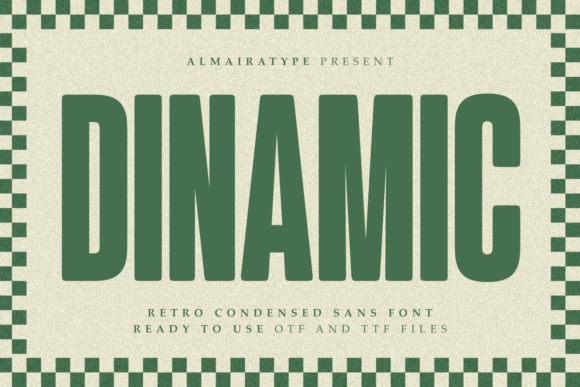
The Ultimate Design Companion: Unleashing the Power of Dinamic Font
Remember the thrill of rummaging through your grandfather’s attic, discovering a vintage poster or a dusty old magazine that sparks your creativity? For many designers, that’s the moment when the magic happens – a spark of inspiration that sets their imagination ablaze. As you delve deeper into the world of typography, you’ll soon realize that the right font can be the key to unlocking that creative potential.
Enter the Dinamic Font, a bold and versatile retro condensed sans font that’s perfect for high-impact visual storytelling. Designed to command attention while maintaining a sleek and professional elegance, this font is an essential asset for any creative toolkit. Whether you’re a graphic designer, clothing brand, or print on demand entrepreneur, the Dinamic Font is sure to add a touch of timeless character to your designs.
With its smooth, slightly rounded edges and classic 70s and 80s typography feel, the Dinamic Font is a valuable addition to any designer’s arsenal. Its excellent readability and unique, stylish flair make it perfect for creating trendy apparel designs, social media graphics, or eye-catching logos.
Dinamic Font Key Features
- Font Family: Dinamic Font is a sans-serif typeface designed for digital use, available in multiple weights.
- Character Set: Dinamic Font supports a wide range of languages, including Latin, Cyrillic, and Greek scripts, making it suitable for global applications.
- Unique Characteristics: Dinamic Font features a unique blend of modern and geometric elements, resulting in a clean and sophisticated appearance.
Dinamic Font Review
As a designer, I was excited to test the Dinamic Font, and I must say, it has some great qualities. ✨ Firstly, its dynamic feel and energetic vibe make it perfect for headlines and titles, grabbing the user’s attention instantly. The font’s versatility in conveying a sense of movement and flow is truly captivating. I’ve used it in a few projects, and the results are always impressive.
Another great aspect of the Dinamic Font is its extensive language support, making it a great choice for multilingual projects. It’s also worth mentioning that the font comes in a range of weights and styles, giving designers plenty of options to experiment with.
While the Dinamic Font has many strengths, there are a few areas where it falls short. ⚠️ For one, it’s not the best choice for body text, as it can be a bit too flashy and overwhelming for large blocks of text. Additionally, the font’s high x-height can make it look a bit too condensed, which may not be ideal for certain designs.
In conclusion, the Dinamic Font is a great choice for designers looking to add a touch of energy and dynamism to their projects. While it may have some limitations, its versatility and range of options make it a valuable addition to any designer’s toolkit.
- Dynamic feel and energetic vibe
- Extensive language support
- Range of weights and styles
- Perfect for headlines and titles
Dynamic Font: A Practical Application Guide
Tips for Getting the Most Out of Dynamic Font
Here are a few tips for getting the most out of Dynamic Font:
- Experiment with different font sizes and styles to find the perfect look for your project.
- Use Dynamic Font in combination with other design elements to create a unique and eye-catching visual effect.
- Take advantage of the font’s customizable options to create a personalized look that reflects your brand or style.
Dynamic Font is a versatile font that can be used in a variety of applications, including:
- Marketing materials, such as brochures and flyers.
Q: Does Dinamic Font support Unicode characters?
Yes, Dinamic Font includes a wide range of Unicode characters, including Latin, Cyrillic, and Greek alphabets, as well as various symbols and emojis. This ensures that the font can be used in a wide range of languages and applications.